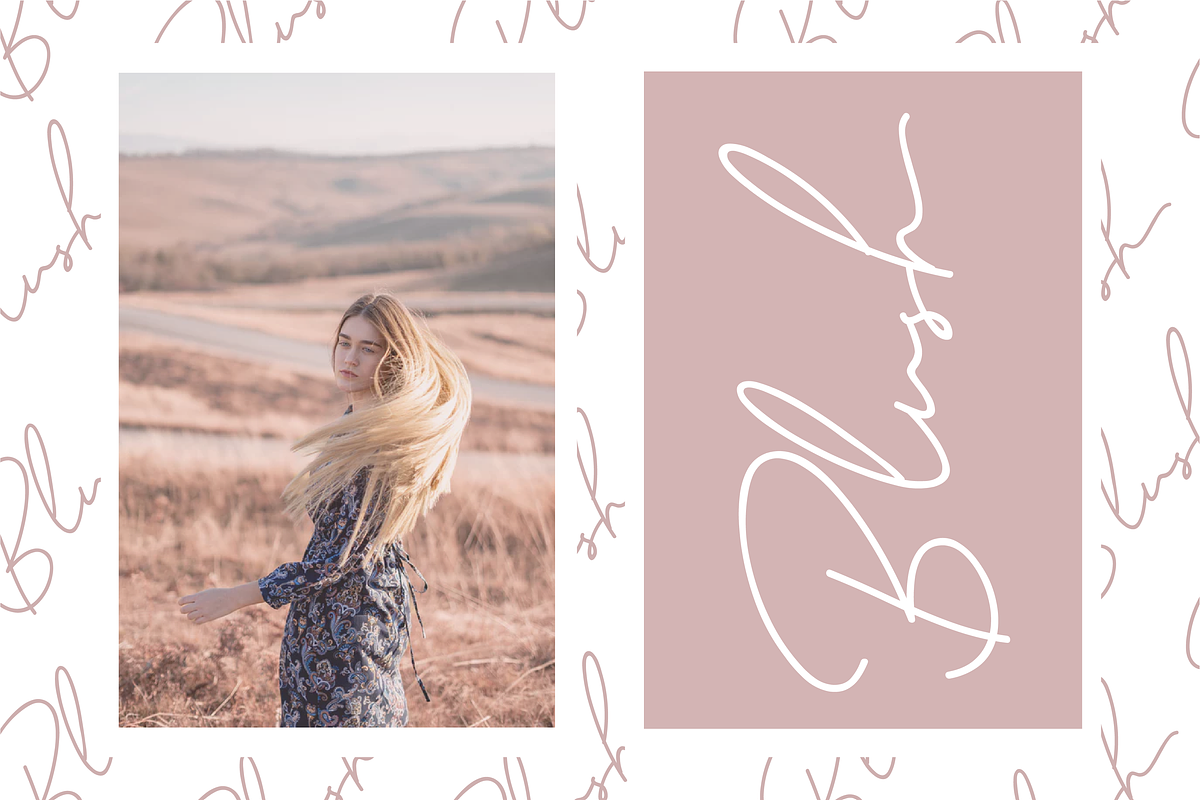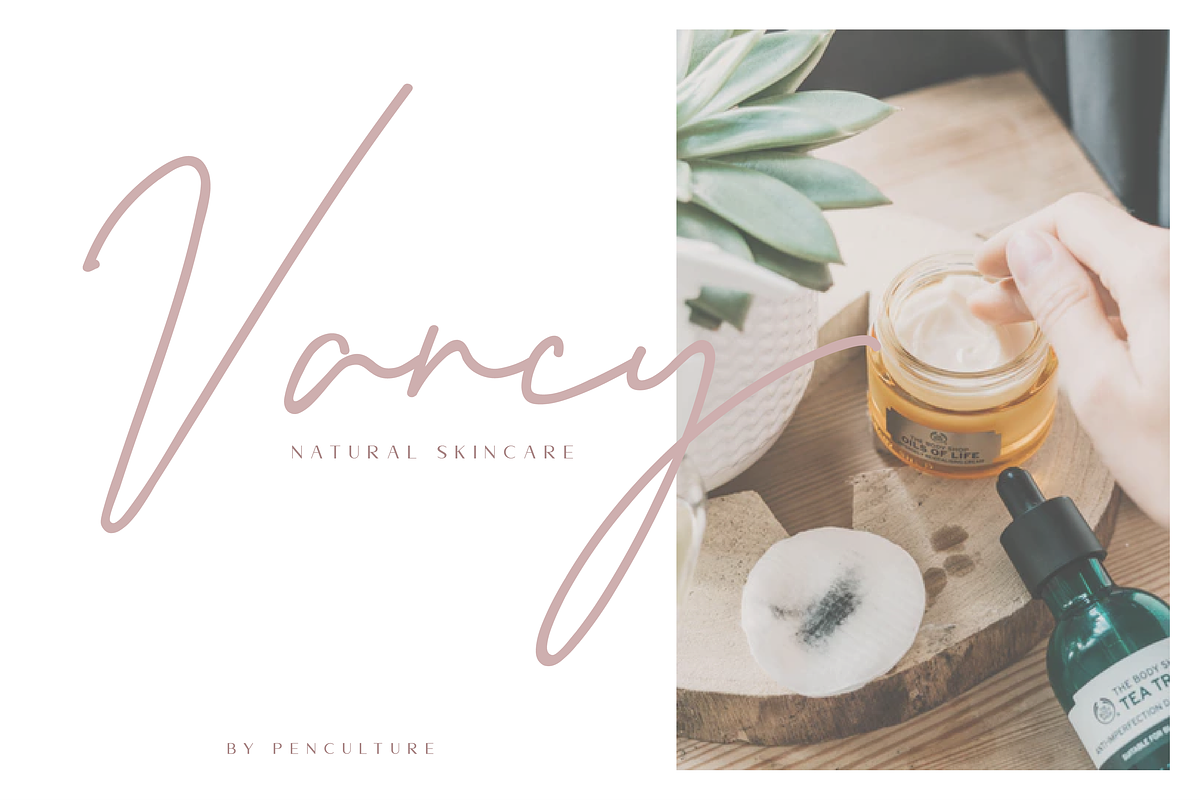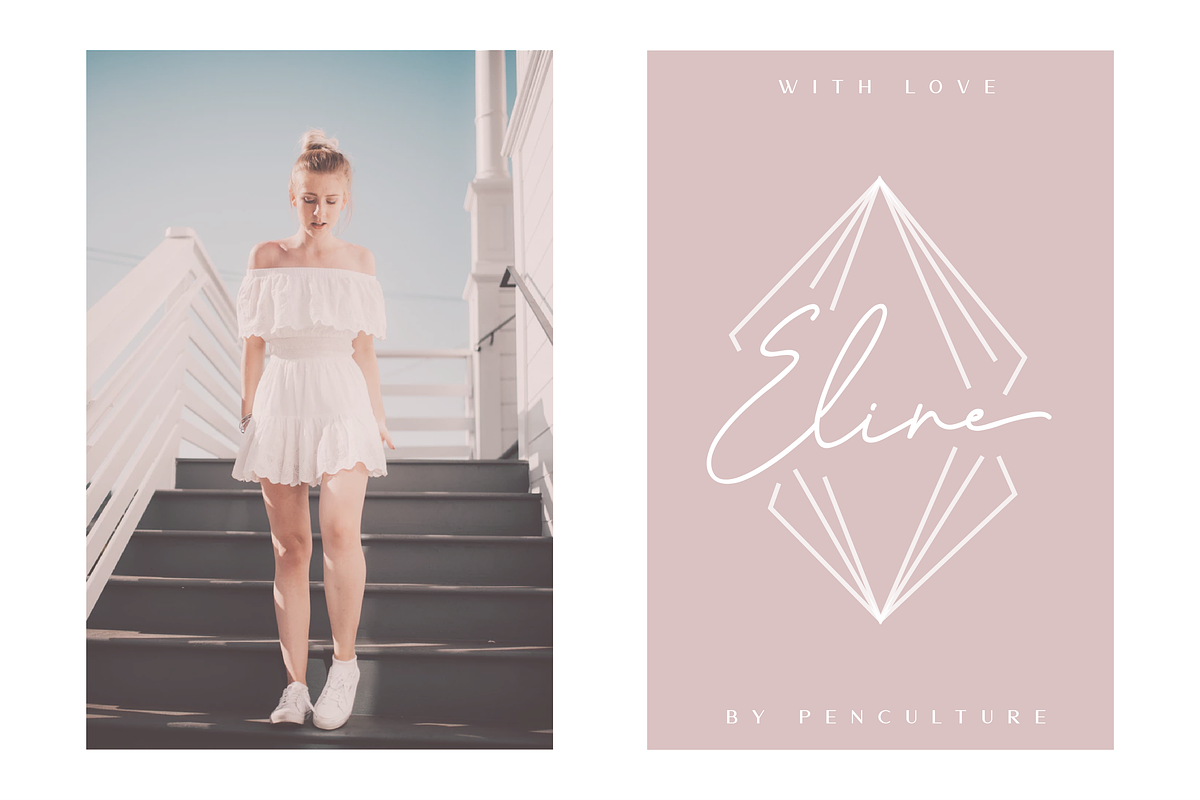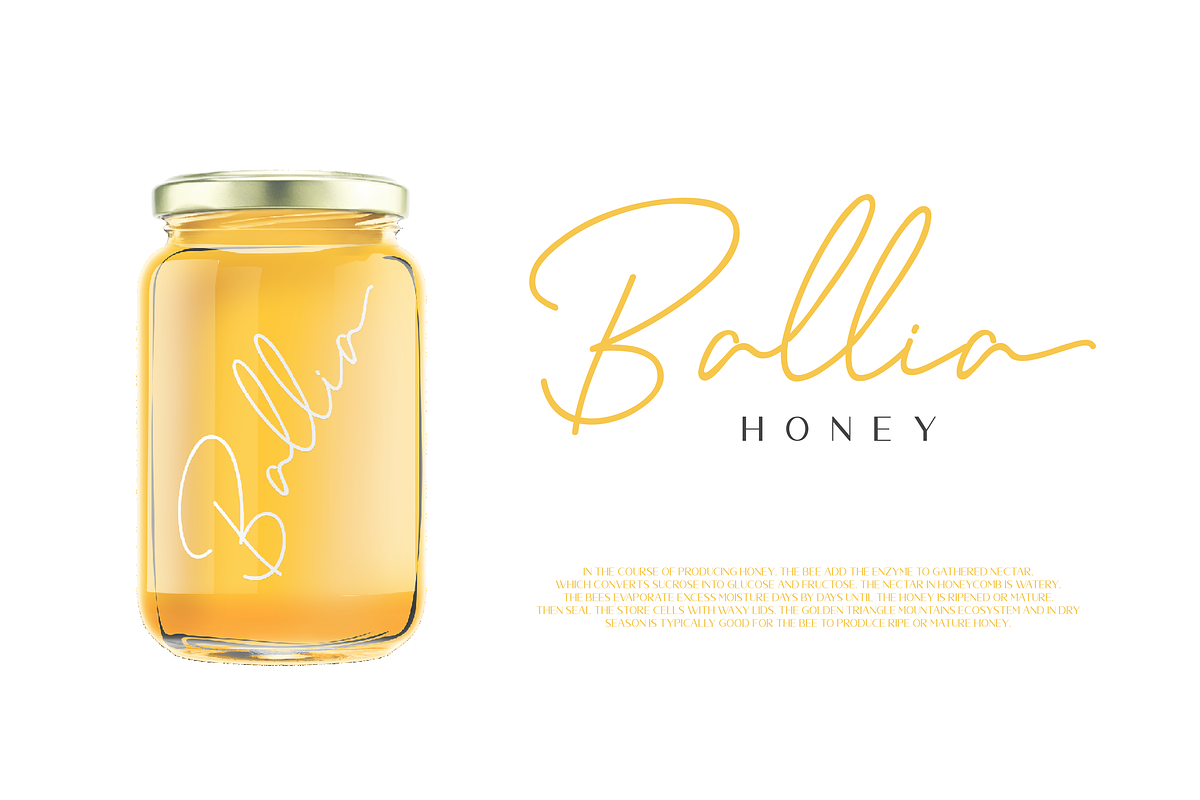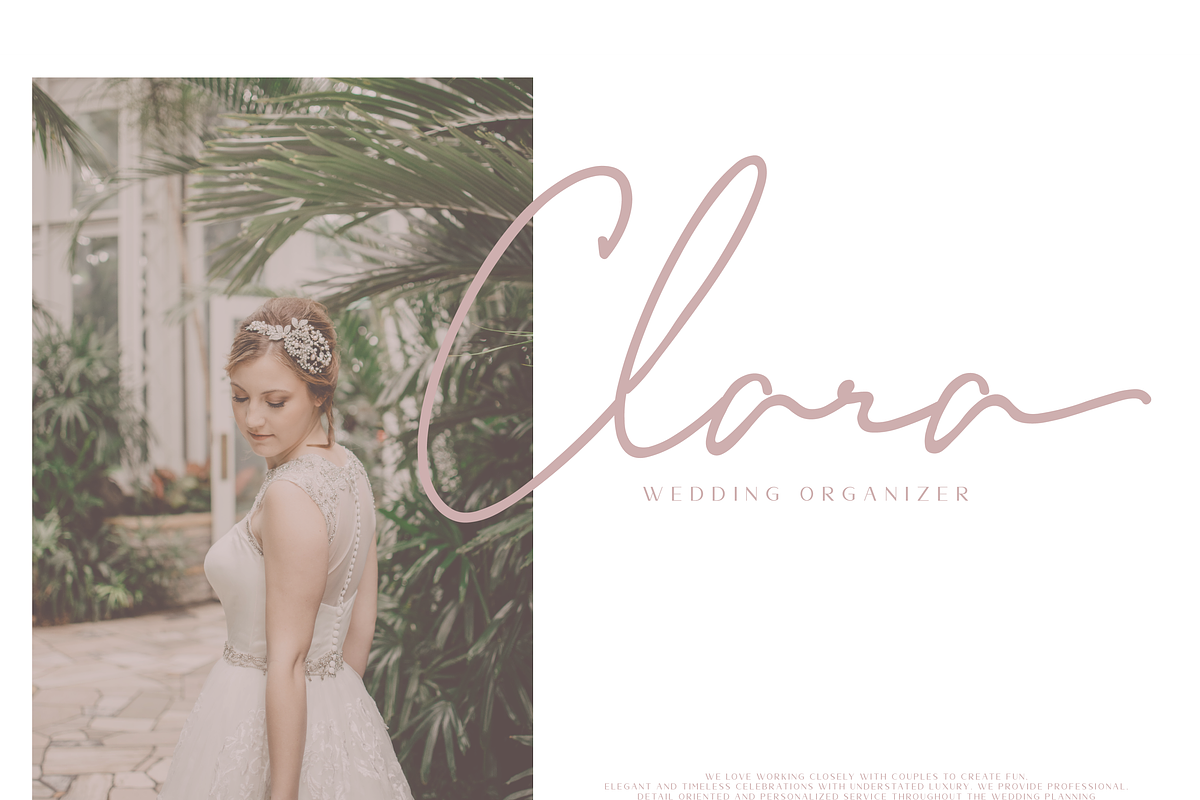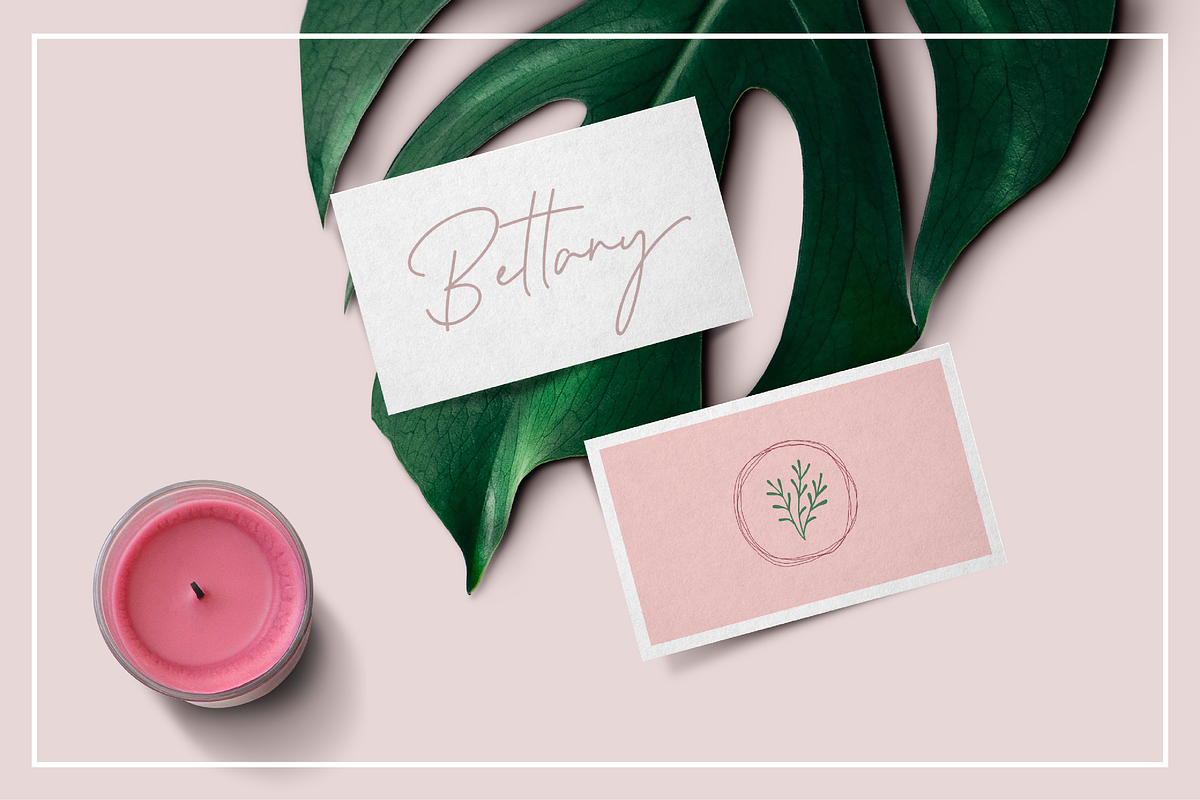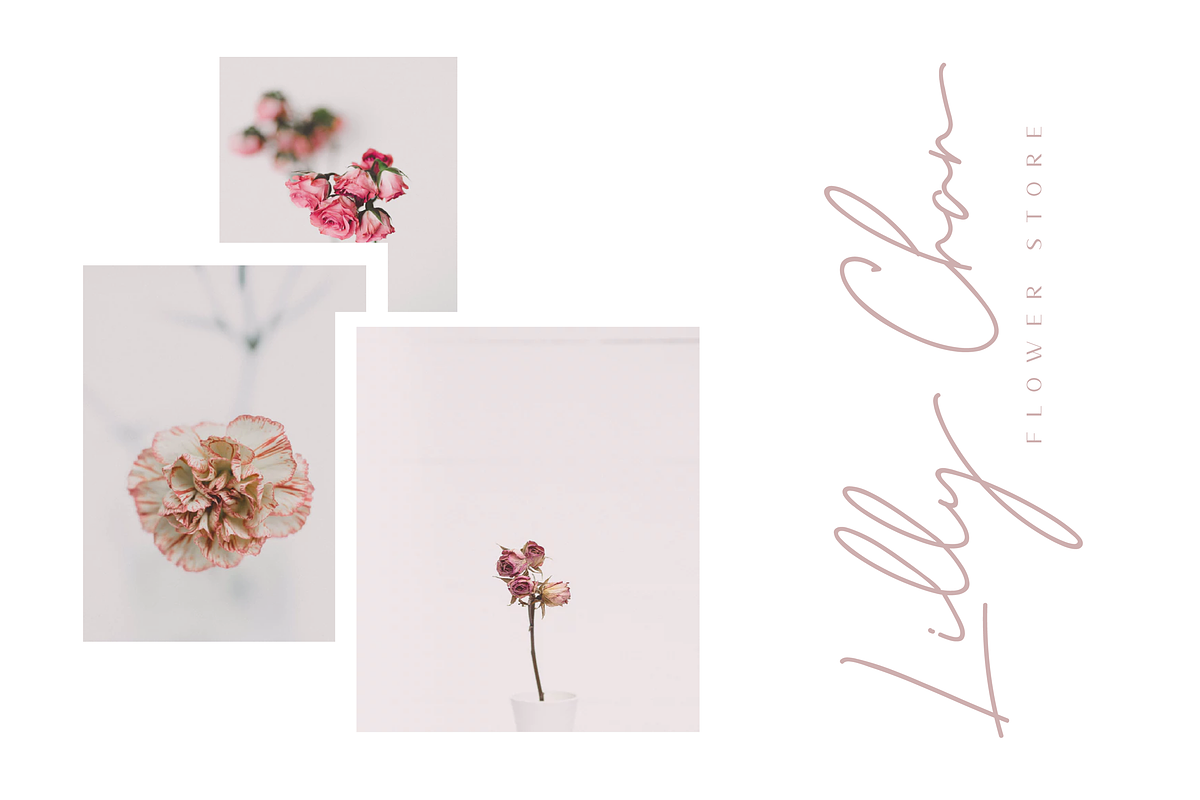
Ralline - Modern Script Font
Introducing the new "Ralline - Modern Signature Font" a natural and fashionable script font with complete features that will be very pleasant. This font easy to use and perfect for logo design / branding, watermark photos, product packaging, and much more.
Why Ralline - Modern Script Font is worth a look
Ralline - Modern Script Font by Pen Culture fits naturally into Branding, posters, packaging, typography.